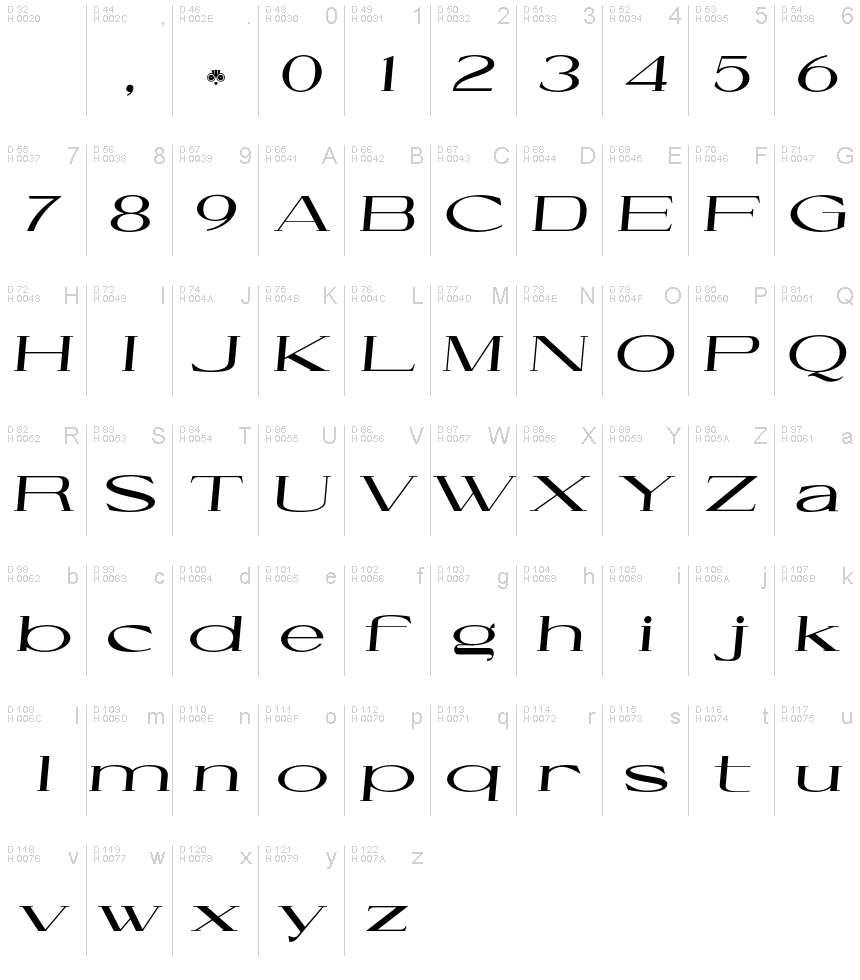
Cellofy ExtBd ExtExp Ita font, designed by Owlking Project, is a striking serif typeface that commands attention with its bold and expanded form. This elegant font is perfect for creating impactful headlines and sophisticated branding designs. Its expansive nature gives each character room to breathe, enhancing readability while maintaining an artistic flair.
Ideal for use in high-impact graphic designs, Cellofy's distinct style makes it a versatile choice for projects ranging from editorial layouts to expressive posters. Available as a free font for personal use, it offers designers an excellent opportunity to experiment with creative typography that stands out from the crowd.